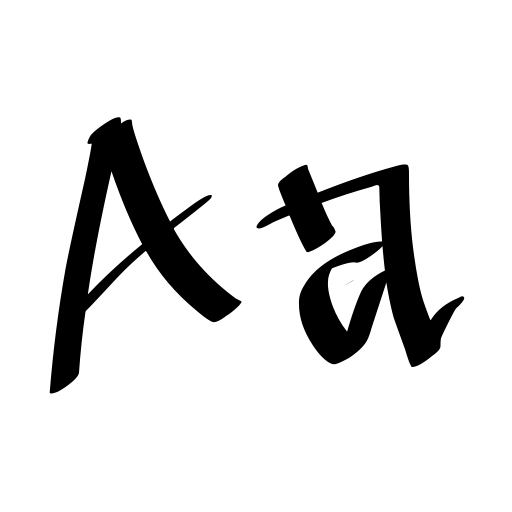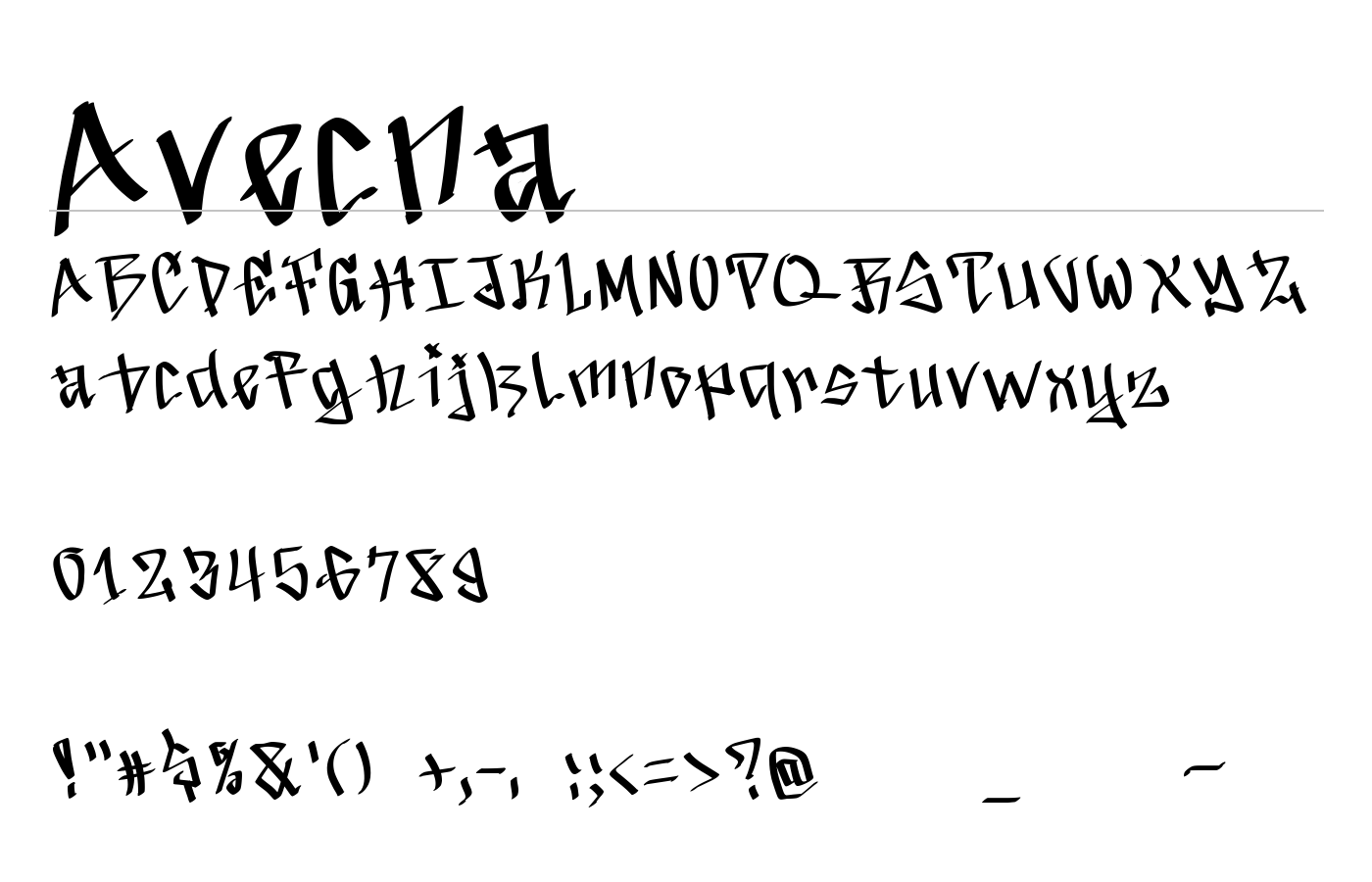
Avecna is a lively, handwritten-style font that features sharp, angular strokes and playful, irregular letterforms. Its bold, dynamic character and quirky shapes make it ideal for creative, informal designs such as posters, branding, and headlines where a unique, energetic personality is desired. This font works well in contexts that call for an eye-catching, artistic touch with a slightly edgy, modern feel.
Avecna Font
About Avecna Font